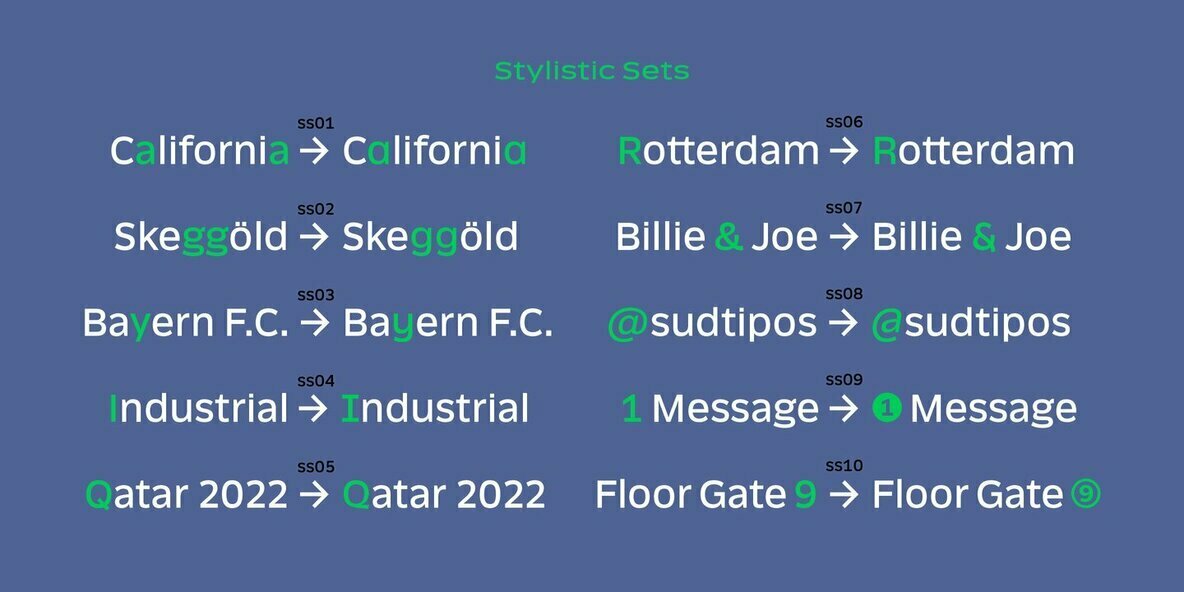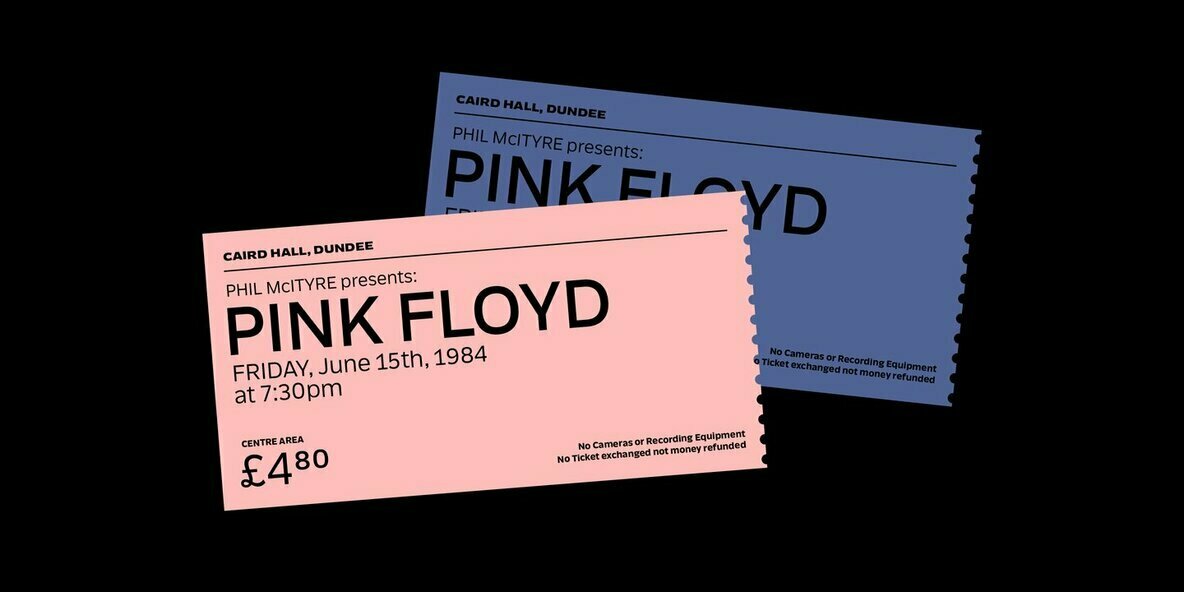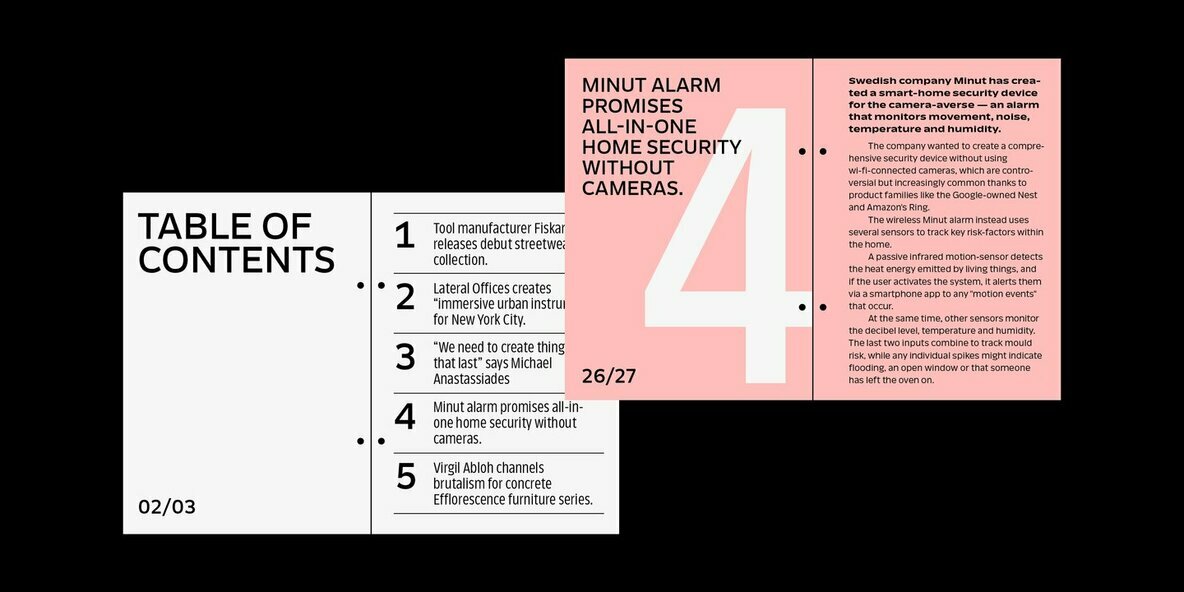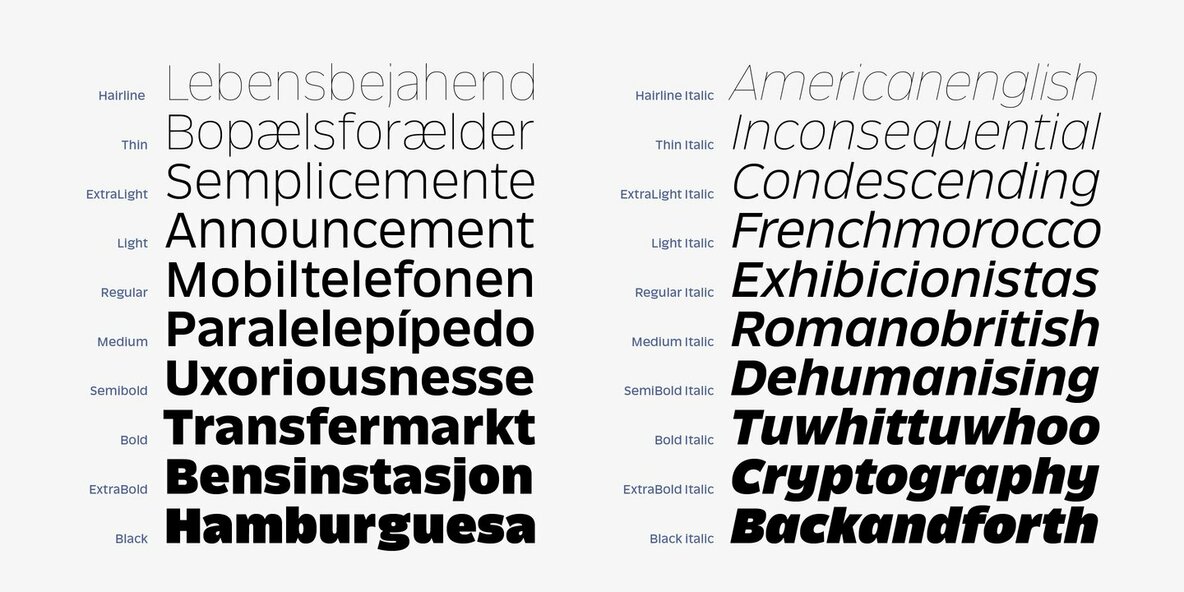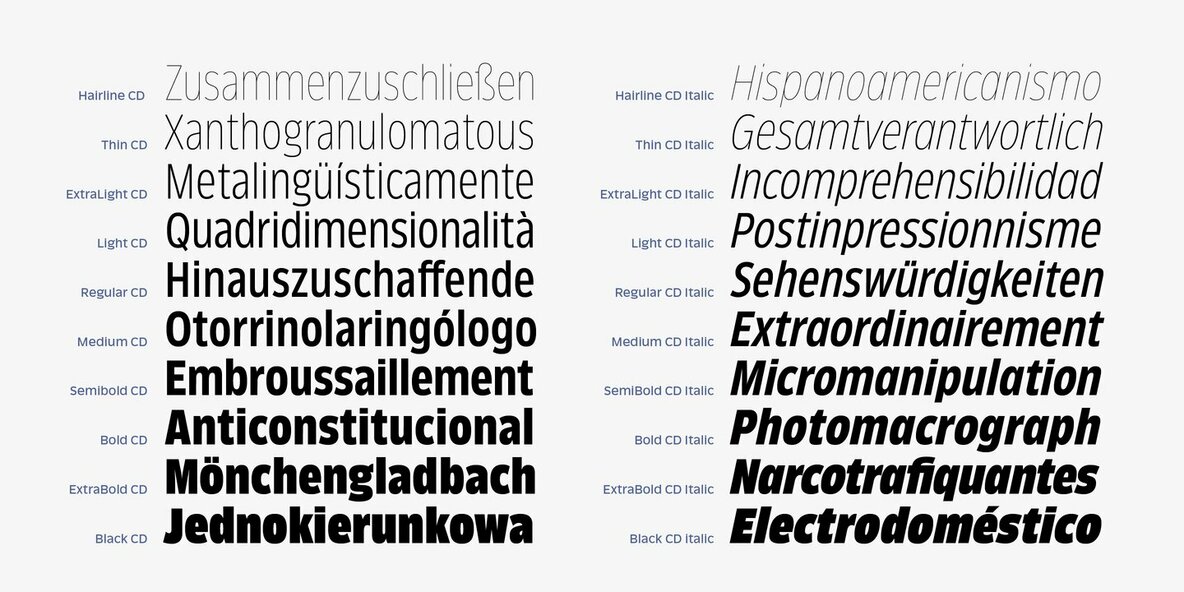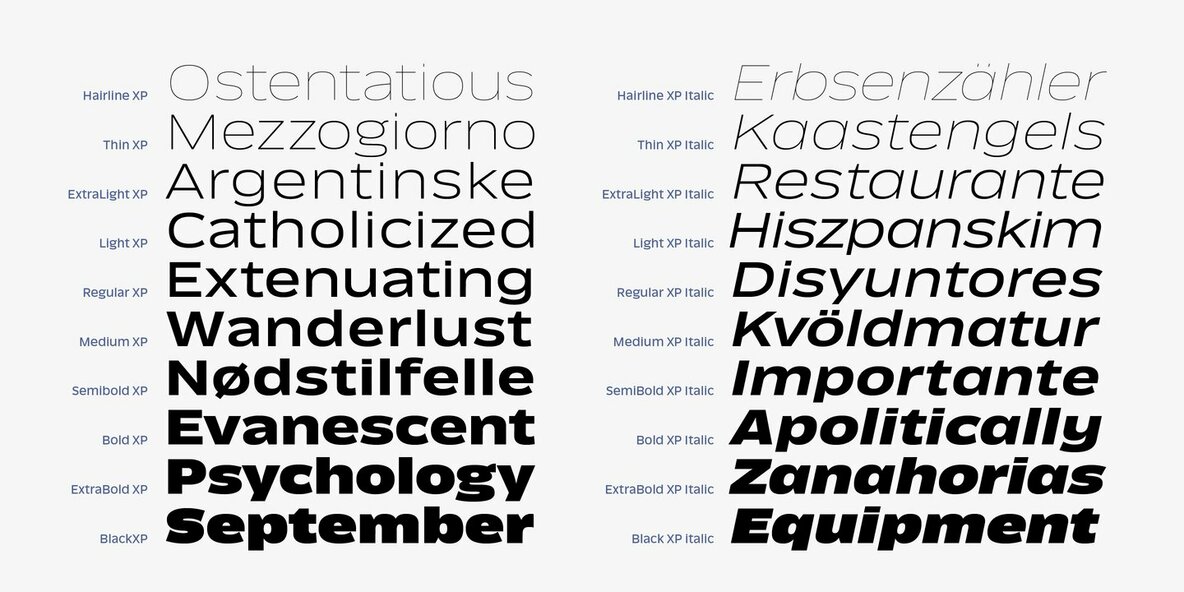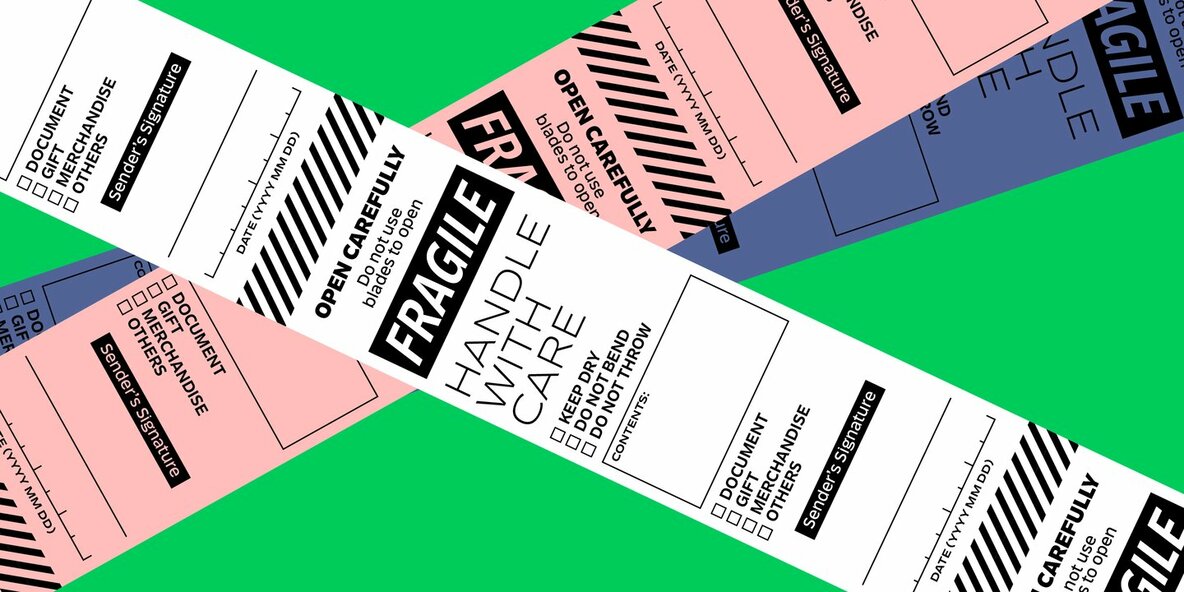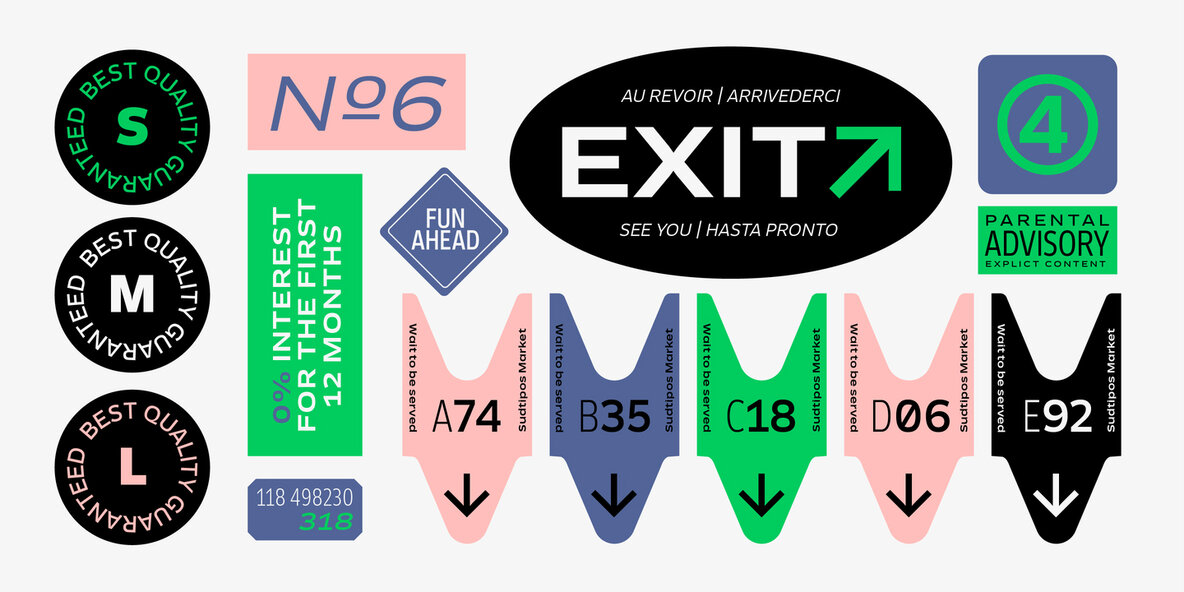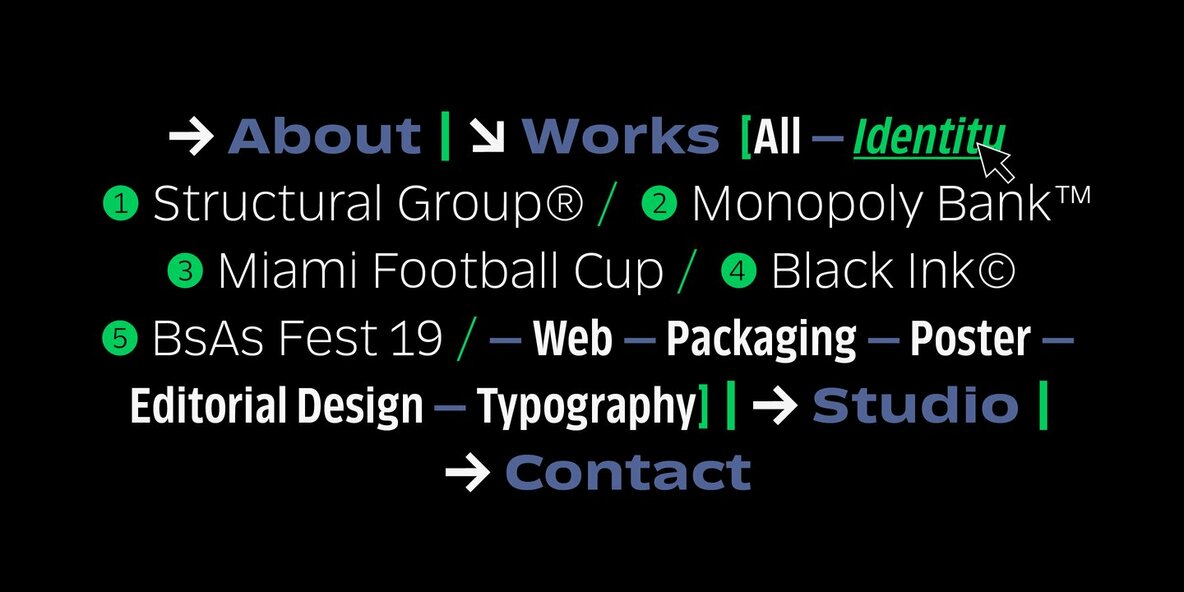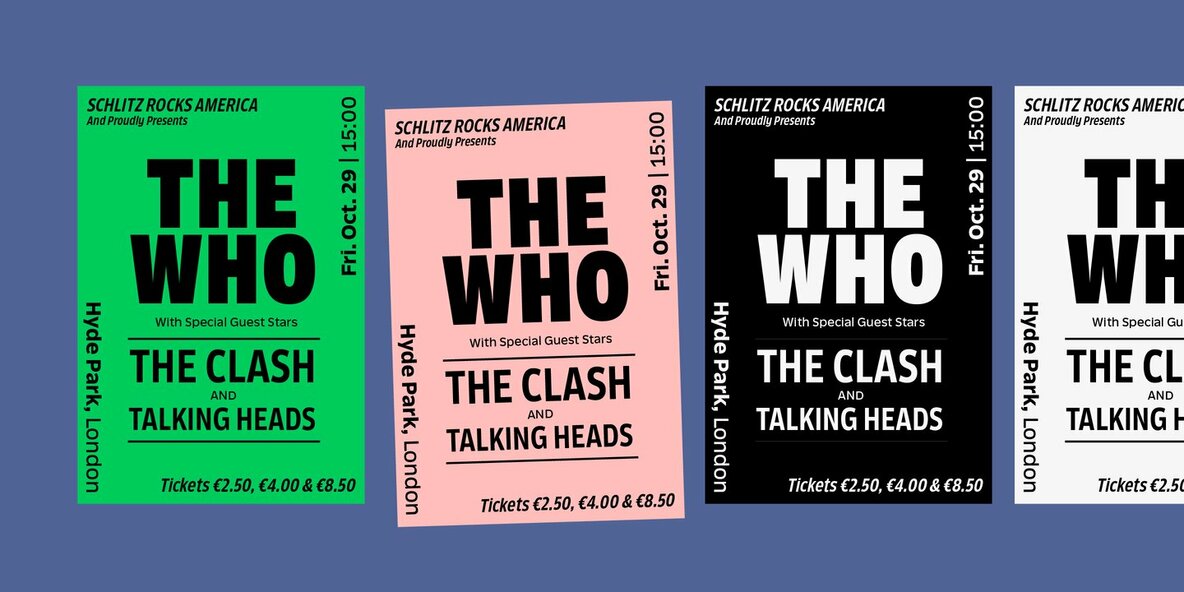
Ansage Font
It is available in 10 weights, ranging from Hairline to Black, and 3 widths – Condensed, Regular and Expanded – plus italics, which make a total of 60 perfect variables to combine and contrast with each other. In addition, it also includes multiple open-type functions such as alternative styles, Old Style Figures, Tabular Forms, fractions, case sensitive, ligatures and more.